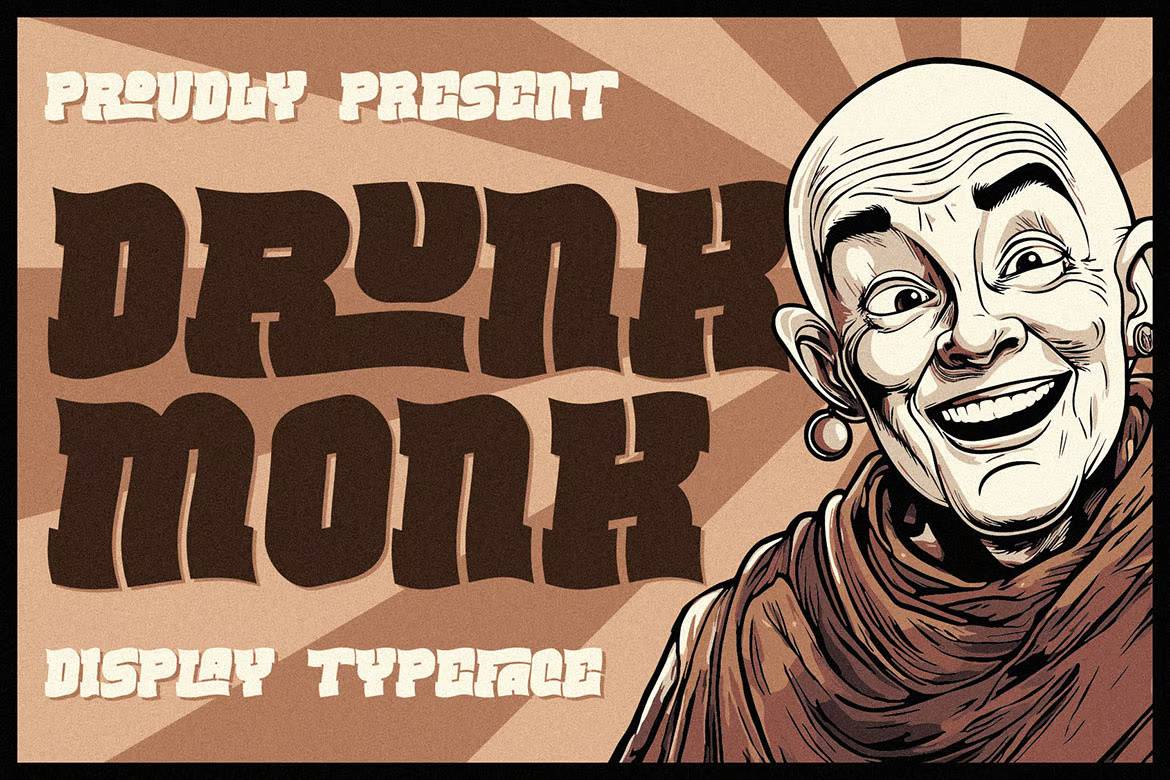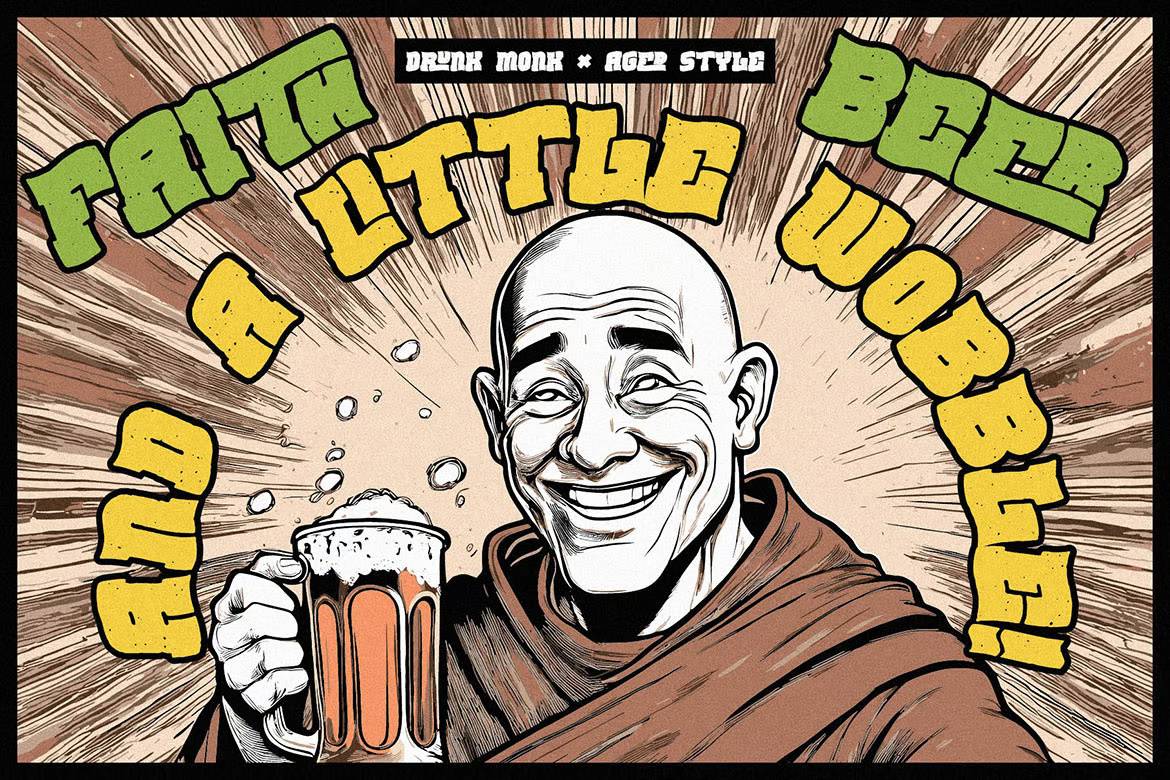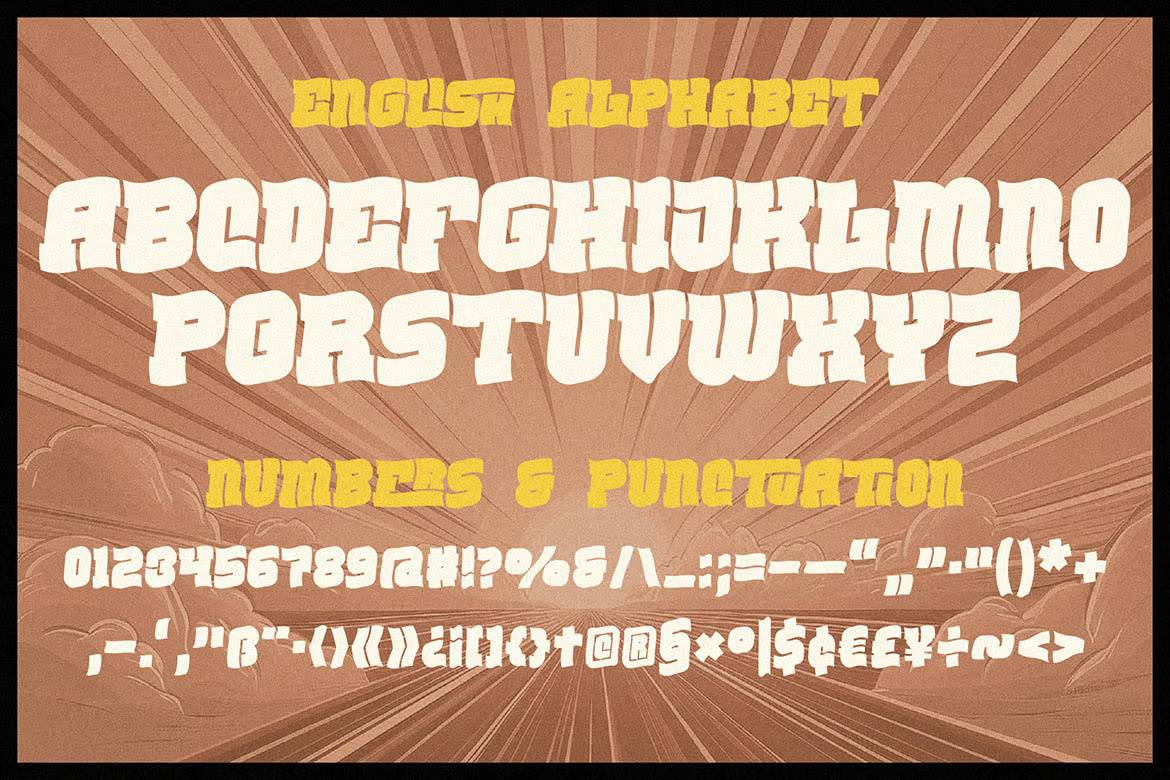
Drunk Monk Font
Drunk Monk Sans-Serif Font
A unique and stylish sans serif font that combines simplicity, elegance, and modern design. With its clean lines, monogram potential, and contemporary appeal, this font includes two versions, alternates, and multilingual support—making it an excellent choice for logos, monograms, and sophisticated branding projects.